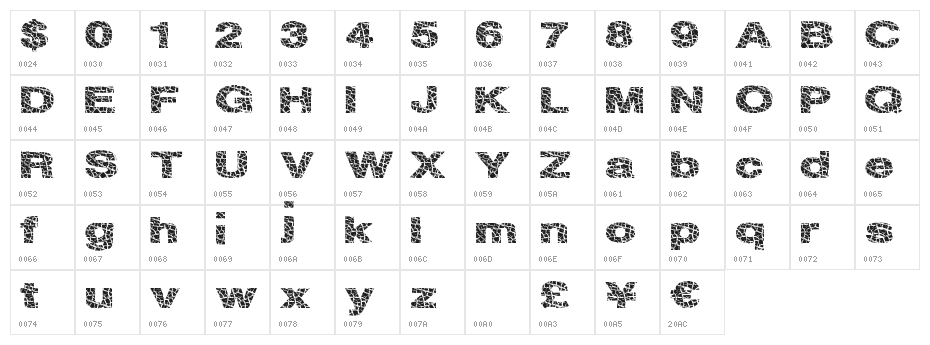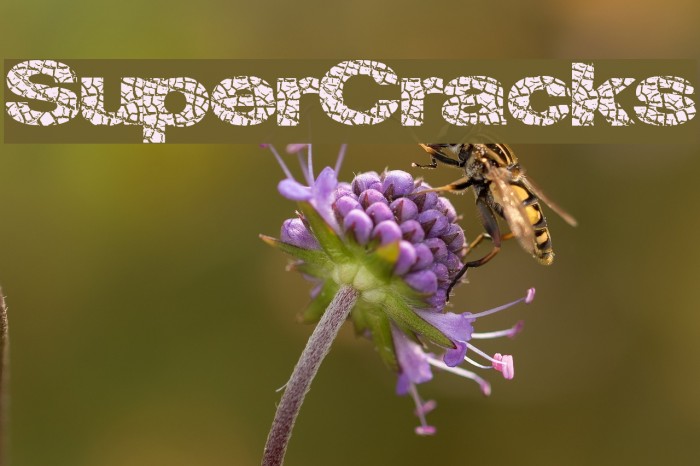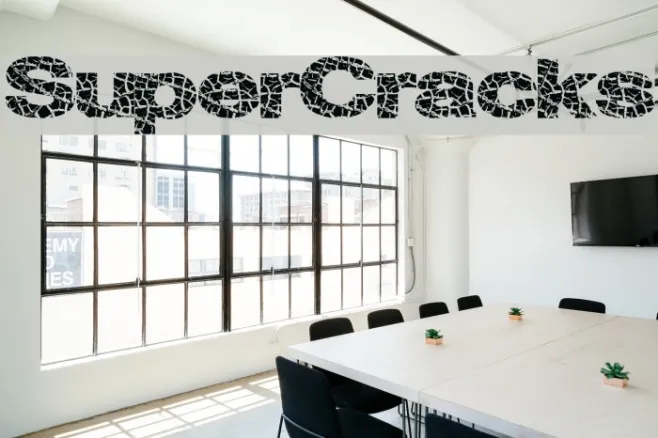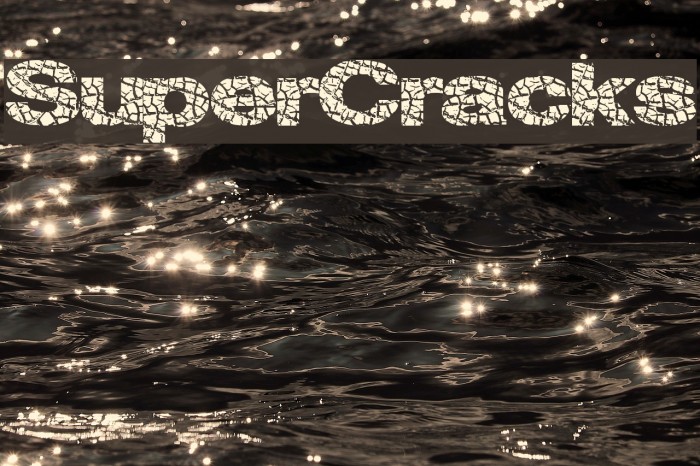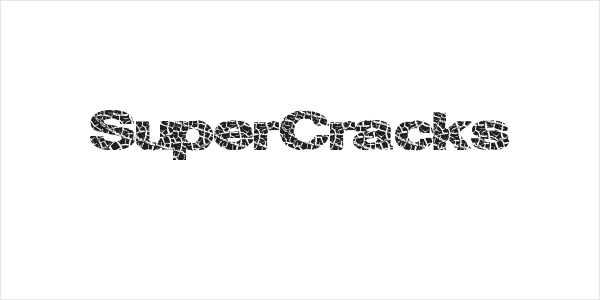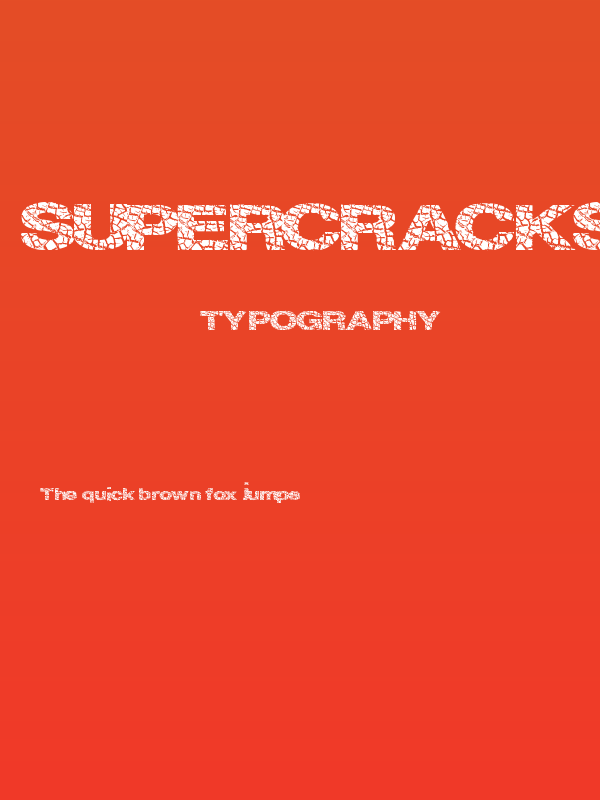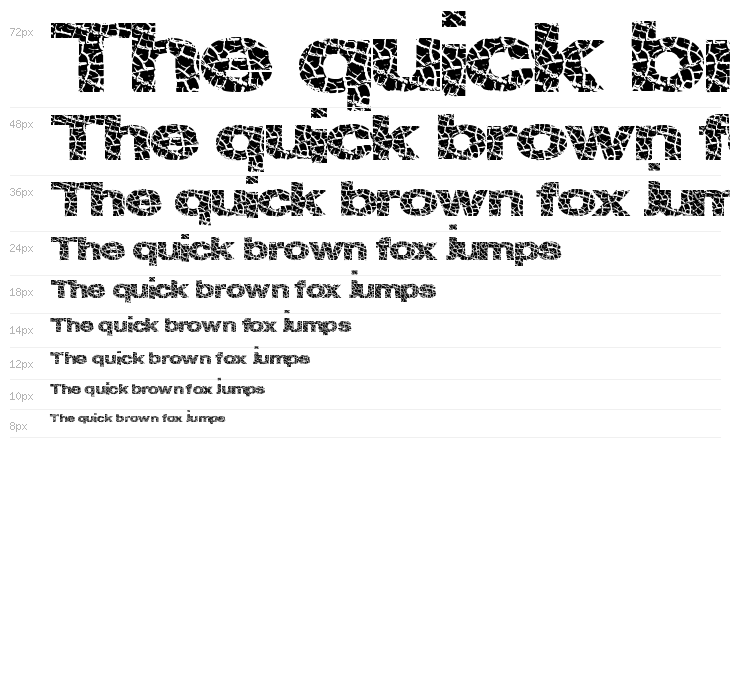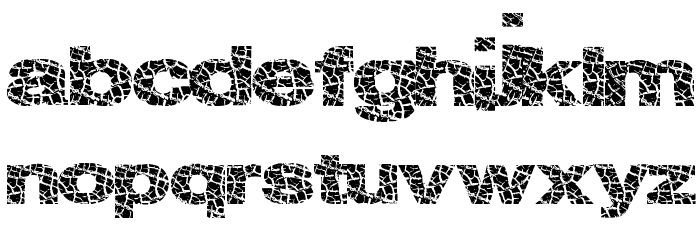
SuperCracks Font
SuperCracks Description
This font features a unique cracked texture that gives each character a fragmented, mosaic-like appearance. The bold and blocky letterforms are filled with irregular, jagged lines that create a sense of movement and energy. The uppercase and lowercase letters maintain a consistent style, with the same cracked pattern applied uniformly across all characters. Numbers and special characters are also included, each exhibiting the same distinctive design. The overall effect is striking and eye-catching, making it ideal for projects that require a bold and unconventional look.